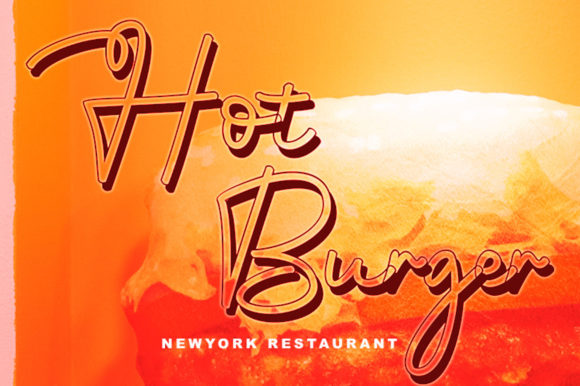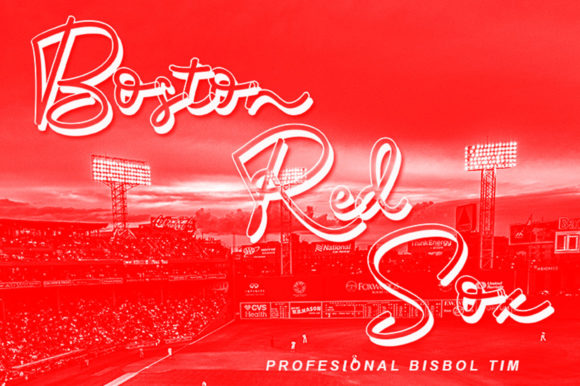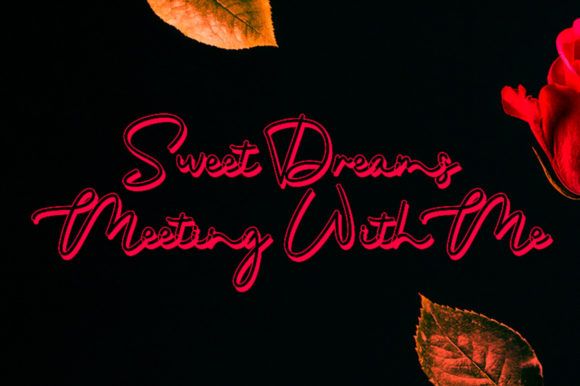
Have you ever been browsing through a beautiful card store, and suddenly, you see a stunning handwritten font that makes your heart skip a beat? For many designers, this is a moment of pure inspiration, and it’s exactly what happens when you lay eyes on the enchanting Malista Script Font. This high-quality, versatile script font has been a design resource for many creatives, and it’s guaranteed to add a touch of romance to your next project.
Introduction to Malista Script Font
The Malista Script Font is more than just a pretty face; it’s a valuable tool for designers who want to elevate their creative project. With its transparent background, this free download is perfect for those who want to add a personal touch to their designs without any distractions. Whether you’re working on a greeting card, a headline, or a wedding invitation, the Malista Script Font is sure to make your design stand out.
Key Features of Malista Script Font
- High-quality design resource ideal for creative projects, offering a beautiful and elegant script style.
- Perfect for use in logos, typography, and other design elements where a high-quality script font is required.
- Designed with a high resolution, ensuring crisp and clear text even at larger font sizes.
Honest Review: Malista Script Font
I recently stumbled upon the Malista Script Font while searching for a high-quality design resource for a creative project. The font’s elegant and whimsical feel caught my attention, and I decided to give it a try.
- ✨ Beautiful and intricate design elements, perfect for adding a touch of elegance to any project.
Overall, I’m impressed with the Malista Script Font. While it has its limitations, its high-quality design and elegant feel make it a great addition to any design resource library. If you’re looking for a beautiful and versatile script font, I’d definitely recommend giving it a try.
The Malista Script Font is a versatile design resource that can be used in a variety of creative projects, including wedding invitations, birthday cards, and social media graphics. Its elegant and sophisticated style makes it perfect for high-end designs.
Alternatives to Malista Script Font
Pacifico is a high-quality, elegant script font perfect for adding a touch of sophistication to your creative project. It’s ideal for designing invitations, quotes, and titles. Pacifico offers a transparent background, making it easy to use on any design resource. Compared to Malista Script Font, Pacifico has a more modern and sleek feel, making it suitable for contemporary designs.
Carolyna Pro is a beautiful, high-quality script font designed for creative projects. It features a delicate and refined style, making it perfect for designing wedding invitations, baby shower invitations, and other special occasion cards. Carolyna Pro has a more feminine touch compared to Malista Script Font, but it can be used for a variety of design projects.
Is the Malista Script Font suitable for large-scale designs?
Yes, the Malista Script Font is a high-quality design resource that can be used for large-scale designs, thanks to its clear and legible characters. The font is also highly scalable, making it perfect for use in a range of creative projects, from business cards to billboards.